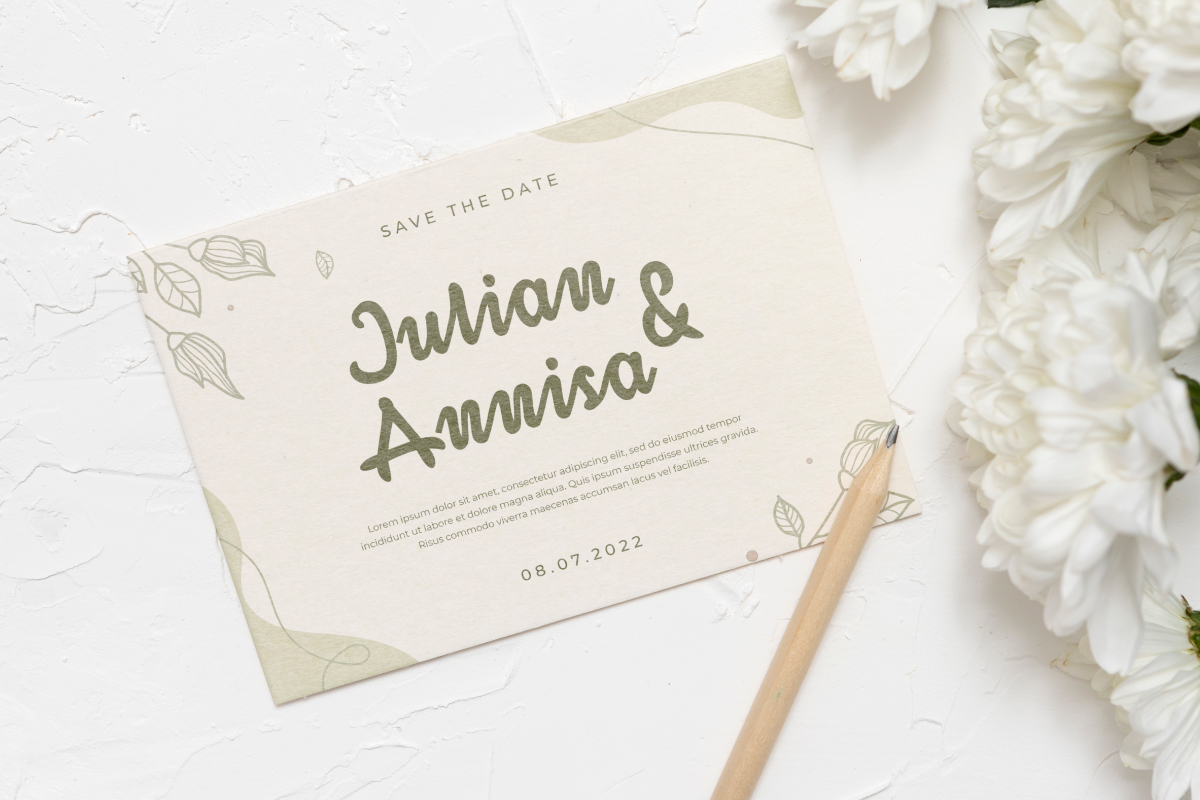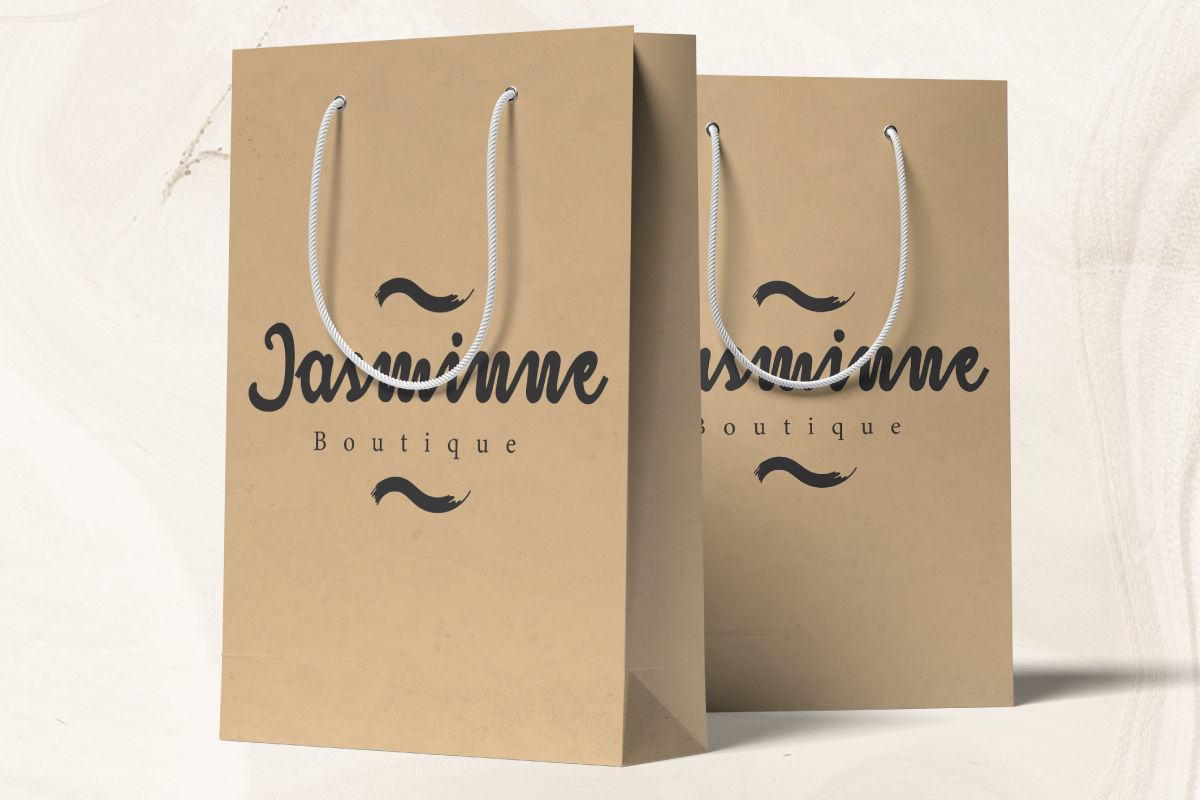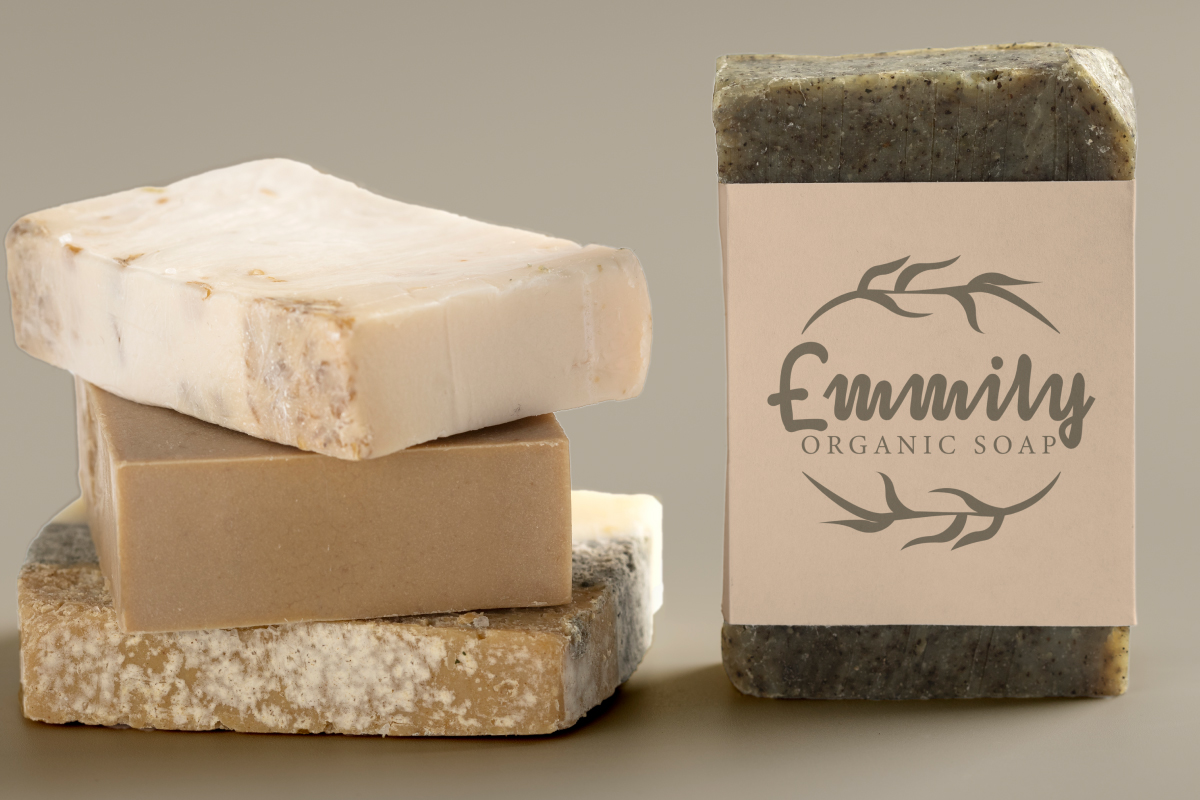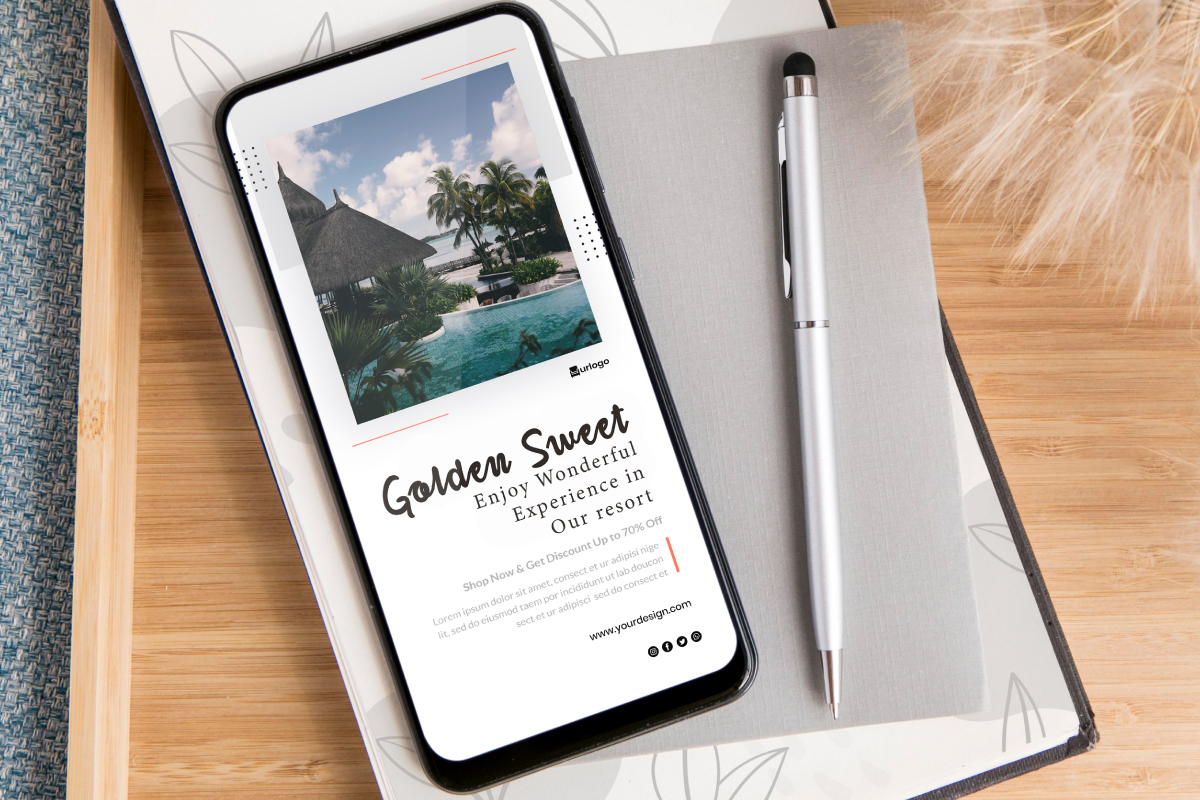
Tomini Font
Tomini Handwritten Font is a simple yet trendy casual script font with handwriting style. This font has bold line characters that make it stand out from any design and still be easy to read. Use this font to enhance your projects, such as business card, flyer, invitation, label, packaging design, quote, screen printing, signage, website, etc.